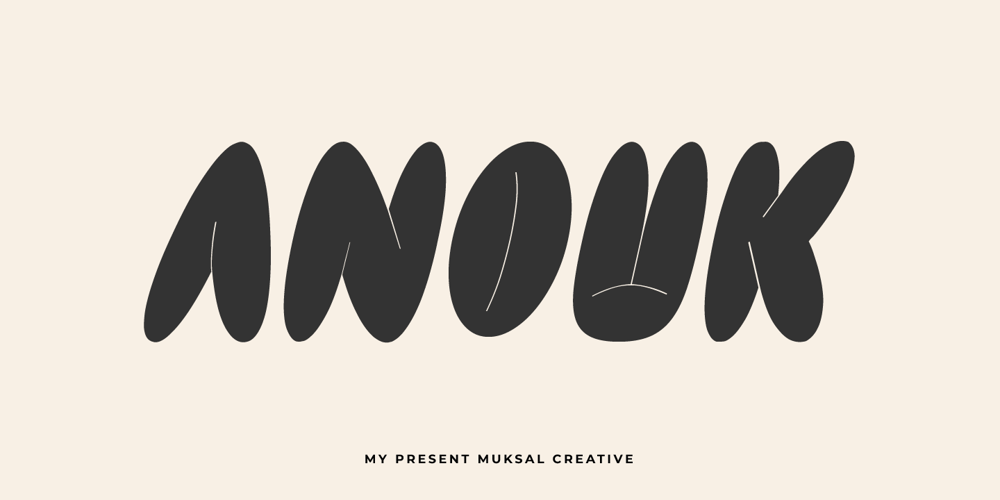
Anouk Font Family was designed by Muksalmina and published by Muksal Creatives. Anouk contains 2 styles and family package options. Anouk Modern Display Font, special glyphs, ornament and multilingual support. It’s a very versatile font that works great in large and small sizes. Perfect for editorial projects, Logo design, Clothing Branding, product packaging, magazine headers, or simply as a stylish text overlay to any background image.